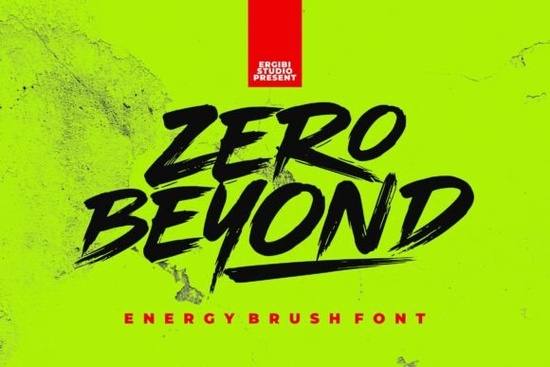
Designers, crafters, and small business owners often look for fonts that can add a unique flair to their projects. The Zero Beyond Font is one such typeface that stands out with its energetic and expressive style. Whether you're working on a poster, a logo, or a promotional design, this font brings a bold and dynamic presence that can elevate your work without needing much effort.
Designed with a hand-painted feel, the Zero Beyond Font captures the essence of spontaneity and movement. Its rough textures and imperfect edges give it an edgy, modern look that’s perfect for urban-themed designs. This font is ideal for anyone looking to make a strong visual statement, especially in areas like streetwear branding, cover designs, and eye-catching advertisements.
What Makes Zero Beyond Unique?
The key feature of the Zero Beyond Font is its raw energy. Unlike more structured fonts, this one feels more like a spontaneous expression. The strokes are fast and unrefined, giving it a sense of motion and urgency. This makes it particularly effective for designs that need to grab attention quickly.
Another aspect worth noting is the font's versatility. While it has a strong, urban vibe, it can still be used in a variety of contexts. For example, it works well in both digital and print formats, making it a valuable addition to any designer’s toolkit. Whether you're creating a t-shirt design or a social media graphic, this font can help you stand out.
How to Use Zero Beyond Effectively
When using the Zero Beyond Font, it’s best to pair it with simpler typefaces to avoid overwhelming the design. A clean sans-serif or serif font can balance the boldness of the brush style, creating a harmonious visual effect. This approach helps maintain readability while still allowing the font to shine.
Consider the context of your design before applying this font. It’s most effective in headlines, logos, and short phrases where impact is essential. Using it for long blocks of text may reduce its effectiveness and make the design feel cluttered.
If you're new to using brush fonts, experimenting with different sizes and weights can help you find the right balance. You can also adjust spacing and alignment to enhance the overall look of your project.
As you continue to explore different fonts, remember that the right choice depends on the message you want to convey. Whether you’re designing for a brand, a personal project, or a client, selecting the right typeface can make a big difference in how your work is perceived.
Before finalizing your design, take a moment to review how the font looks in different sizes and backgrounds. Testing it in real-world scenarios can help you make more informed decisions and ensure the final result meets your expectations.
- Start by understanding the tone and purpose of your design.
- Pair the font with simpler typefaces for balance.
- Test the font in different sizes and settings.
- Explore similar fonts to find the best fit for your project.